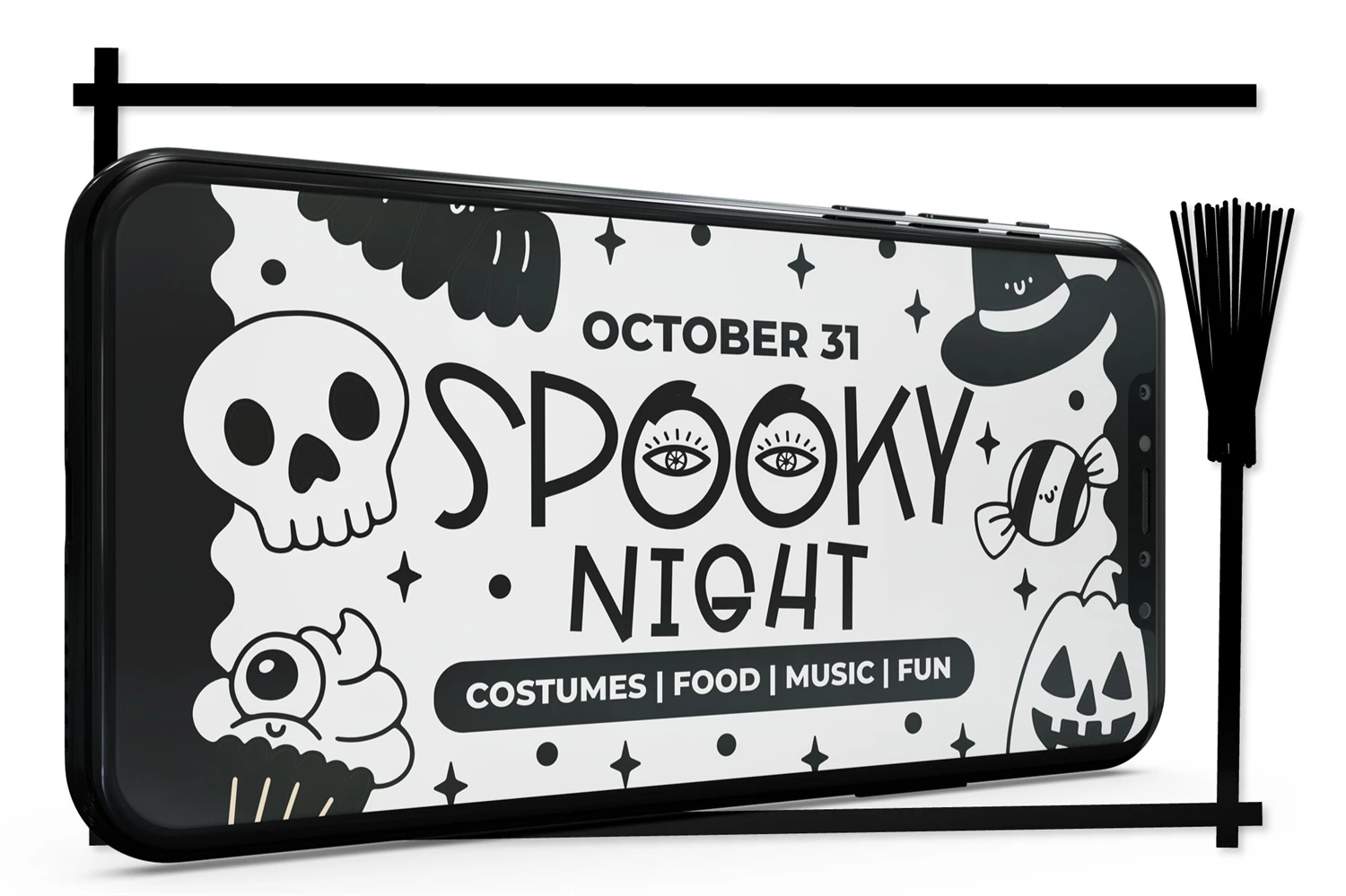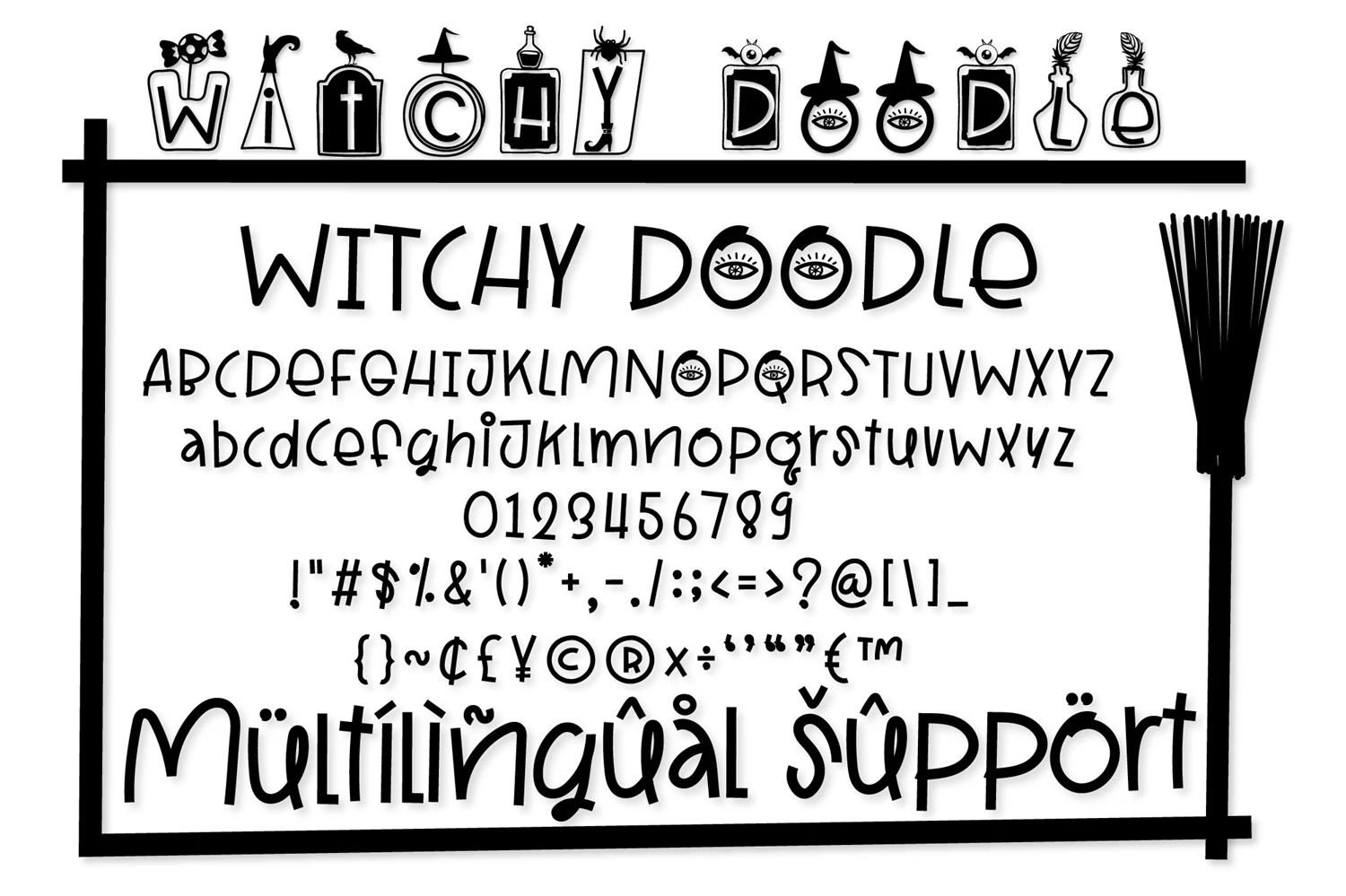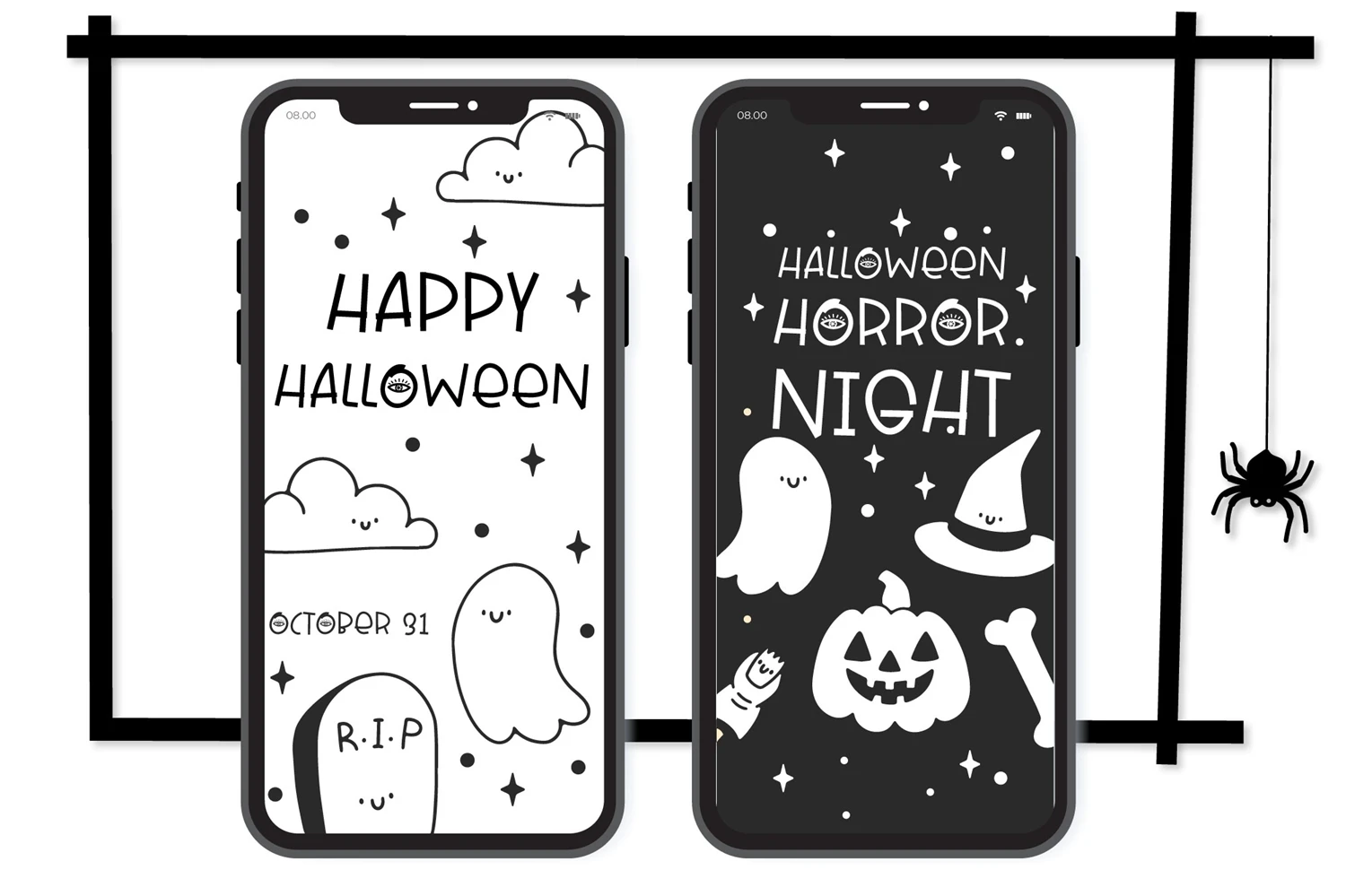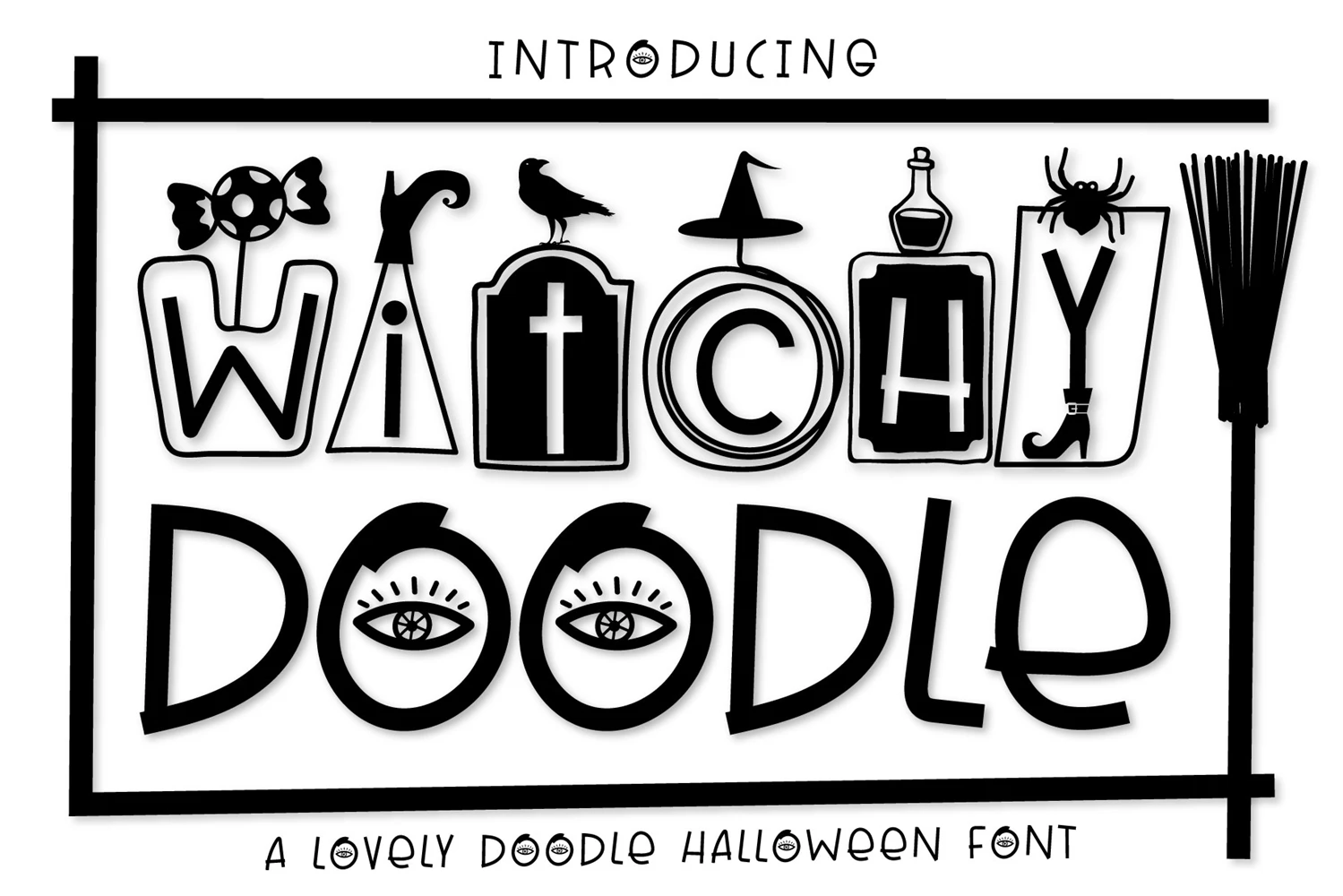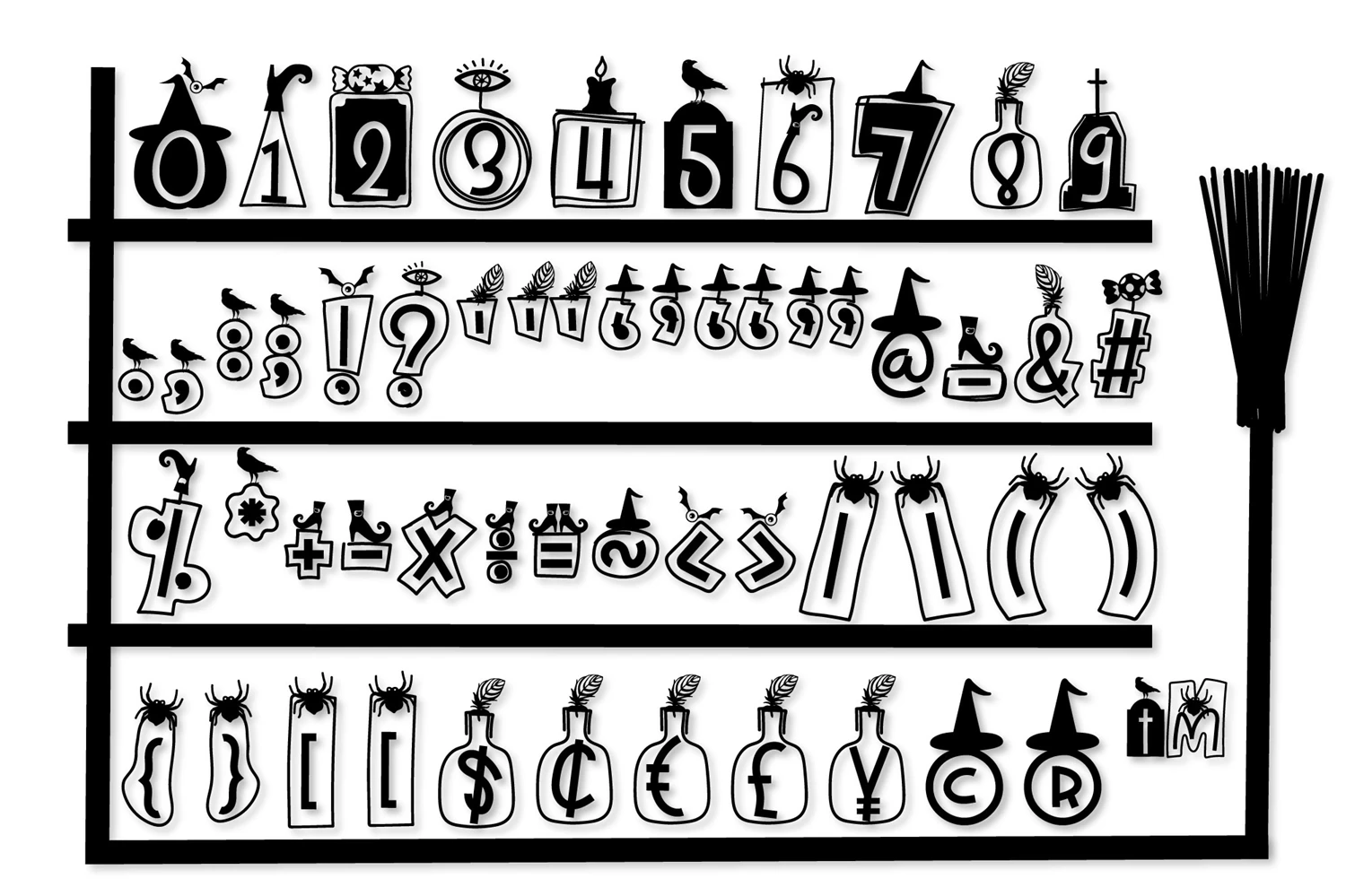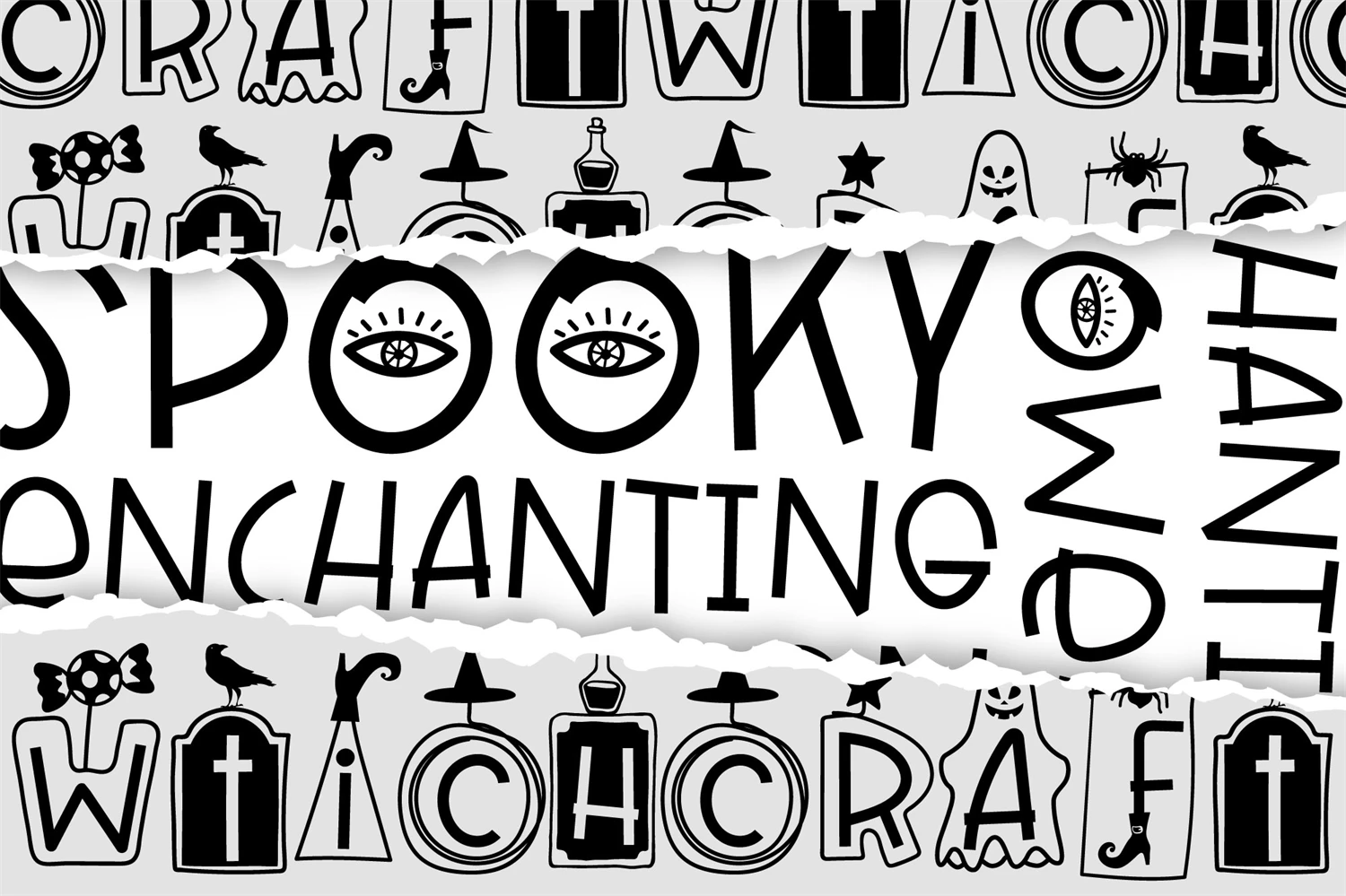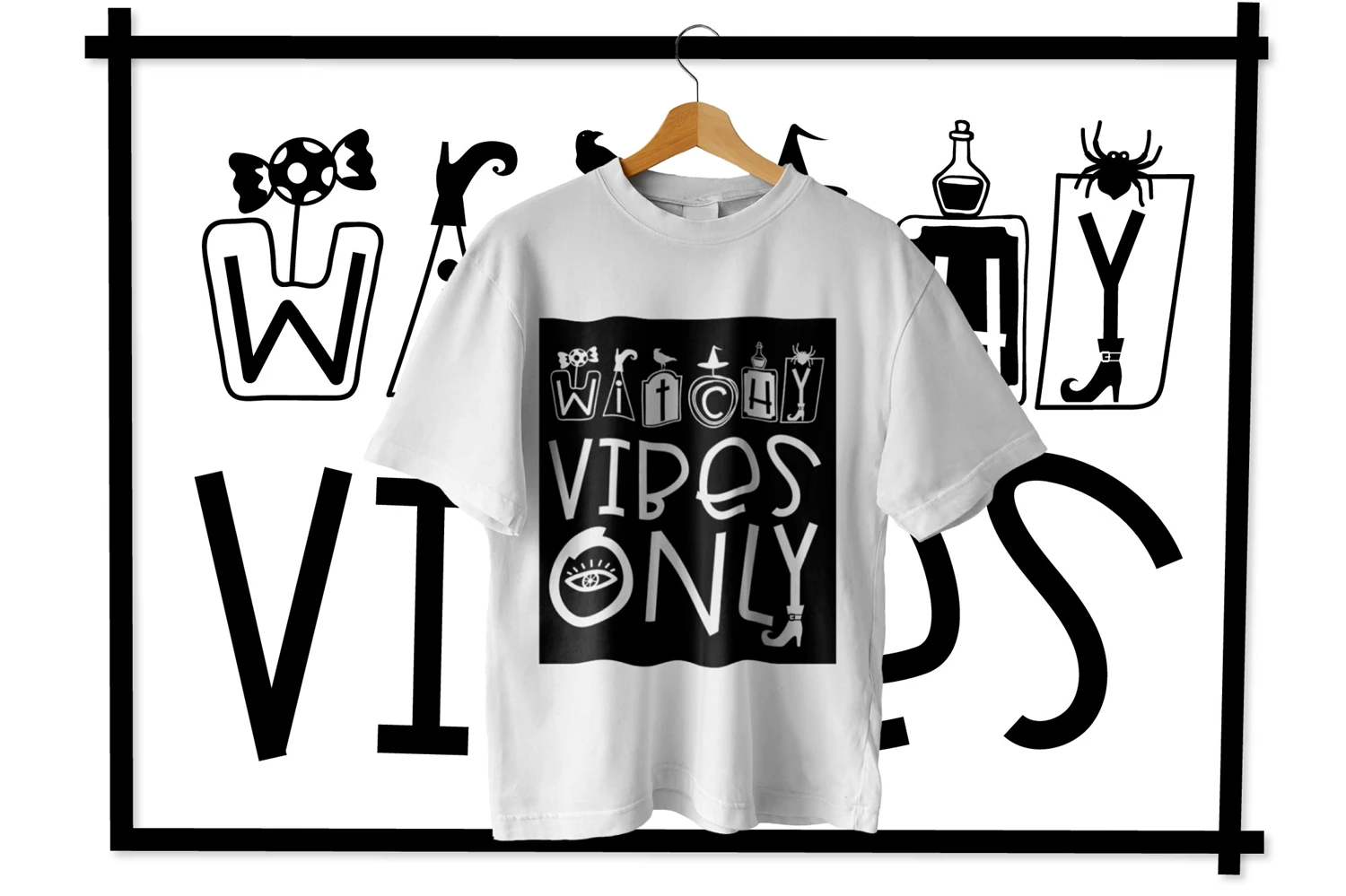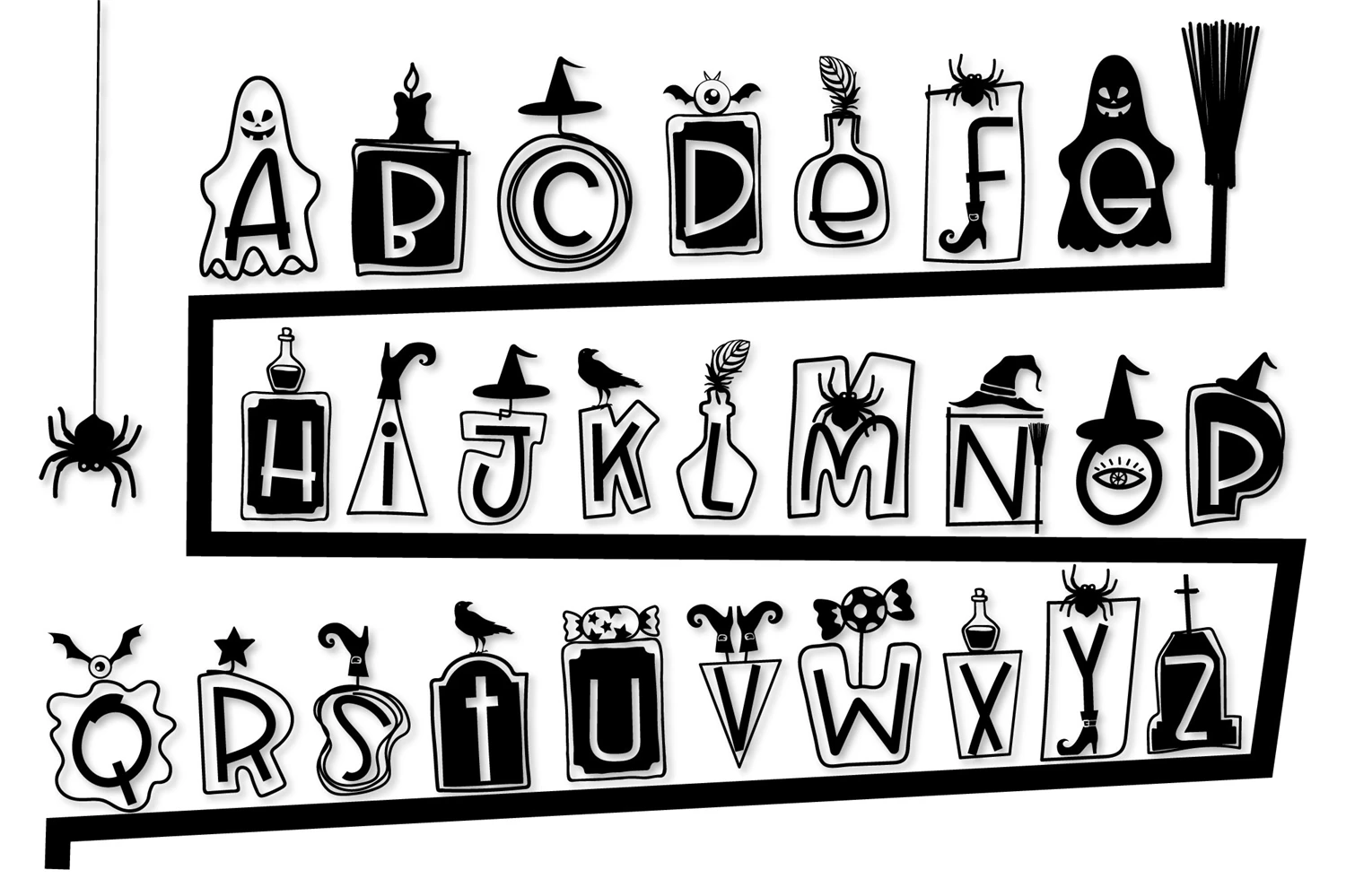
Elevate your designs with Witchy Doodle, a whimsically enchanting font that seamlessly marries the charm of hand-drawn doodles with the grace of handwritten script. Perfect for invitations, branding, and creative projects, it sprinkles a dash of magic onto your design canvas.
Witchy Doodle Font